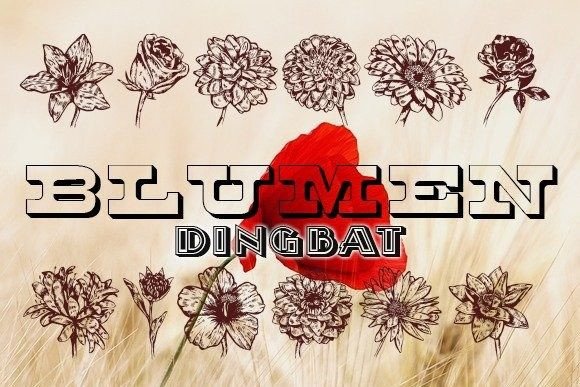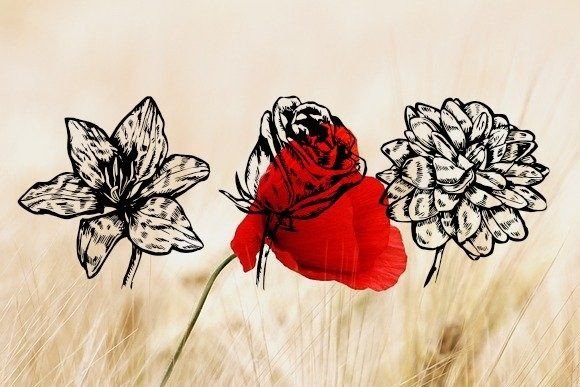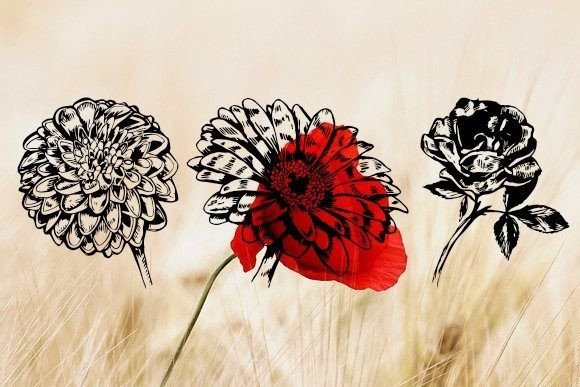
ABOUT BLUMEN FONT
“Blumen” is an extraordinary dingbats font that offers a delightful collection of flower illustrations. This font is designed to bring a touch of beauty, elegance, and nature to your projects, making it a perfect choice for a wide range of design applications.
With “Blumen,” you have a versatile array of flower designs at your disposal. From delicate roses to vibrant sunflowers, from intricate lilies to whimsical daisies, this dingbats font offers a diverse selection of floral symbols to enhance your designs. Each flower illustration is carefully crafted, capturing the essence of nature’s beauty and adding a sense of charm to your visuals.
By incorporating “Blumen” into your designs, you can instantly create an enchanting and visually captivating composition. The flower illustrations bring a sense of freshness, vitality, and natural elegance, making your posters, flyers, or t-shirts stand out with their vibrant and eye-catching appeal. Whether you’re designing for a botanical event, a floral-themed celebration, or simply want to add a touch of nature’s beauty, “Blumen” provides the perfect decorative elements.
The versatility of “Blumen” allows you to use the flower illustrations in various creative ways. You can create intricate patterns, borders, or frames using these floral symbols, or use them as standalone elements to add a focal point to your designs. Their intricate details and organic shapes make them visually appealing and versatile for different design styles.
“Blumen” is an excellent choice for projects that seek to convey themes of nature, beauty, and femininity. Whether you’re designing for a garden party, a floral boutique, or any other nature-inspired event, this dingbats font can help you achieve a distinct and visually captivating look.
So, embrace the beauty of “Blumen” and let the flowers bloom in your designs. Incorporate these delightful illustrations into your posters, flyers, or t-shirts, and let them infuse your projects with the essence of nature’s splendor.